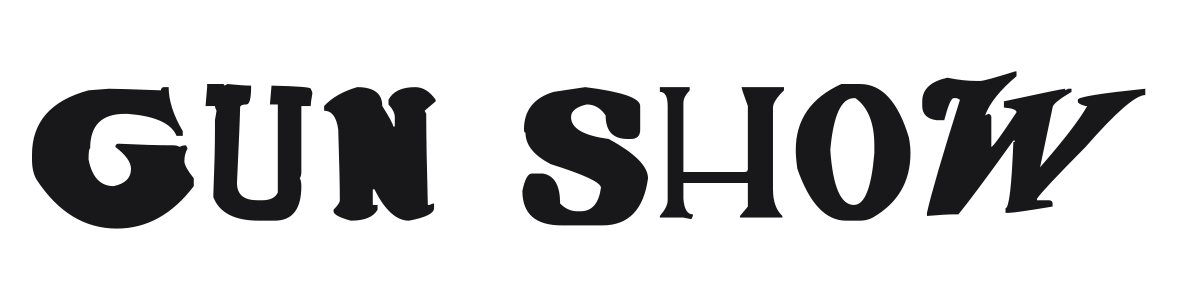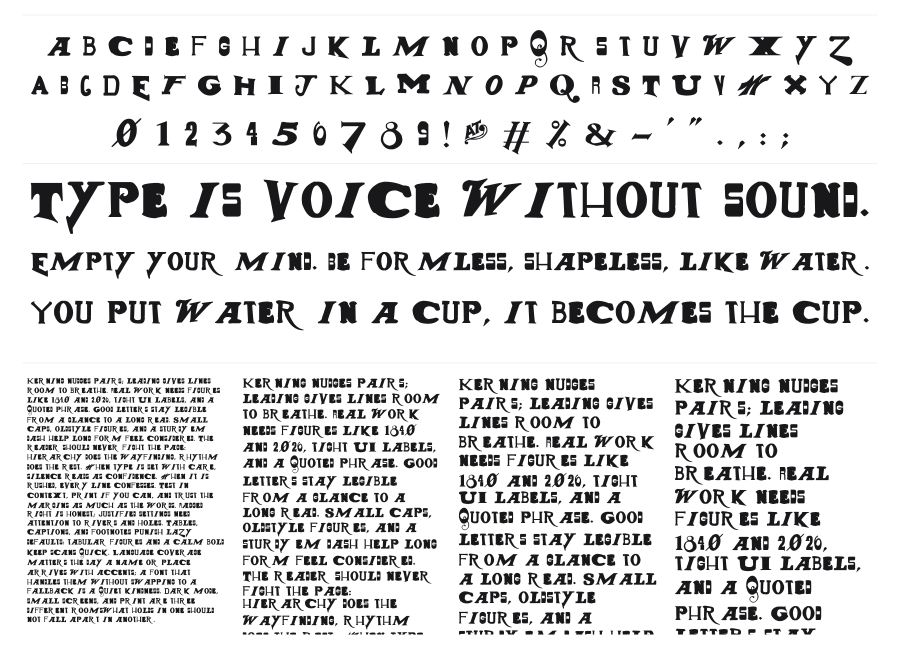
Gun Show
Gun Show is a display serif inspired by vintage ammunition packaging from the 19th and early 20th centuries. Each character pulls from a different corner of antique wood-type and letterpress tradition, giving the font a deliberately mismatched, hand-assembled quality that reads as authentically old. The result is bold, eccentric, and full of character for headlines and poster work that needs a frontier or heritage edge.